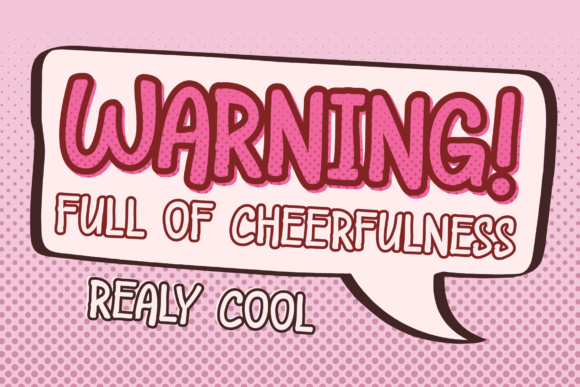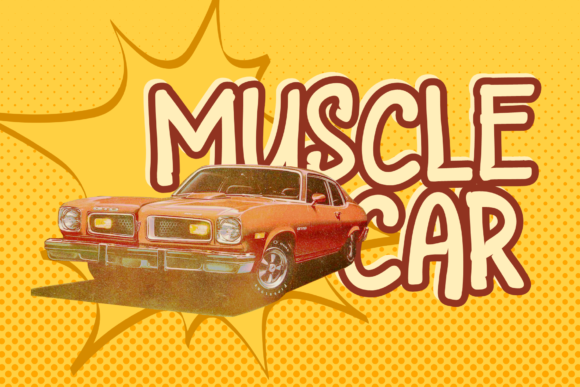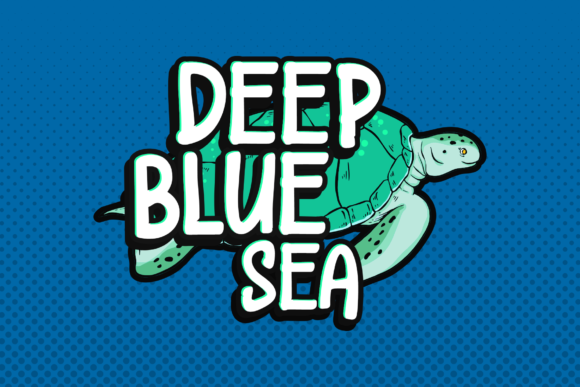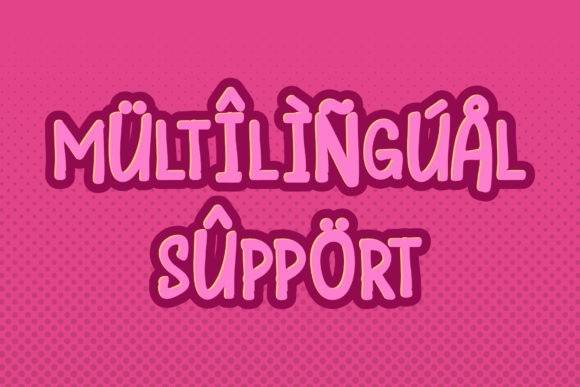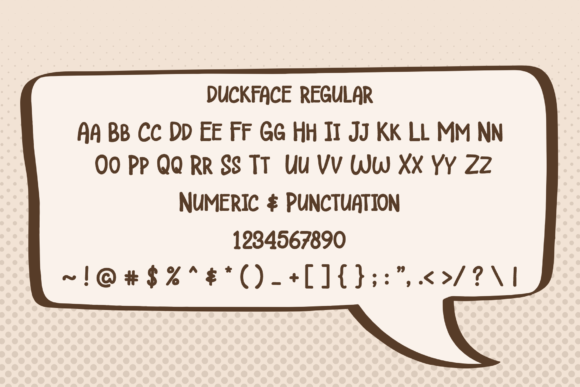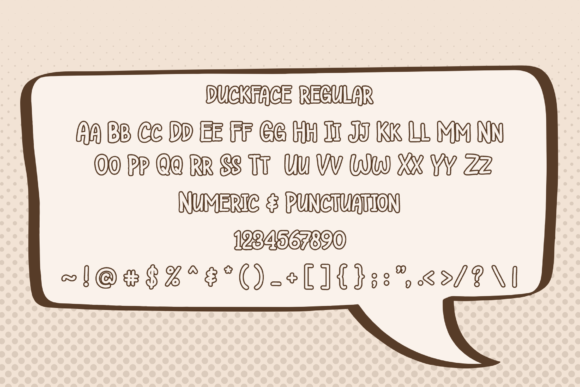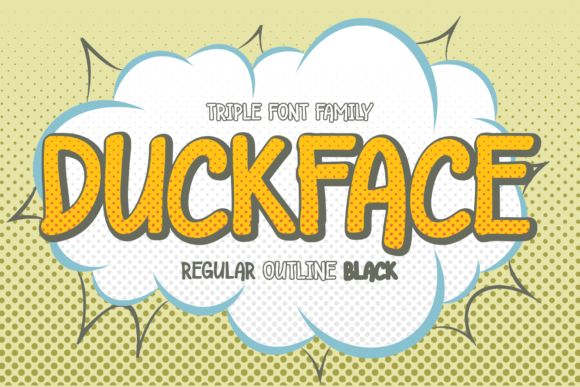
Duckface Font: The Quack-tastic Choice for Playful Designs
Are you looking for a font that embodies playfulness and authenticity? Look no further than the adorable Duckface Font! This cute and playful display font is perfect for any children activity or school project that requires a fun and lively touch. In this article, we’ll dive into the world of Duckface Font and explore its features, uses, and benefits for designers and crafters.
What is Duckface Font?
Duckface Font is a display font designed to capture the essence of playfulness and whimsy. Its unique and quirky design makes it an excellent choice for projects that require a lighthearted and humorous tone. The font’s cute and endearing appearance is sure to delight children and adults alike, making it perfect for a wide range of applications, from children’s books and educational materials to craft projects and DIY activities.
Features of Duckface Font
So, what makes Duckface Font so special? Here are some of its key features:
- Playful design: Duckface Font boasts a unique and playful design that is sure to grab attention.
- Cute and endearing: The font’s adorable appearance makes it perfect for projects that require a touch of whimsy and humor.
- Display font: Duckface Font is designed as a display font, making it perfect for headlines, titles, and other prominent text elements.
- Easy to read: Despite its playful design, Duckface Font is easy to read, making it suitable for both children and adults.
Uses of Duckface Font
Duckface Font is a versatile font that can be used in a wide range of applications, including:
- Children’s books and educational materials: The font’s playful design and cute appearance make it perfect for children’s books, educational materials, and activity sheets.
- Craft projects and DIY activities: Duckface Font is a great choice for craft projects, such as making cards, gift tags, and other DIY activities.
- School projects: The font’s fun and playful design makes it suitable for school projects, such as posters, presentations, and reports.
- Social media graphics: Duckface Font can also be used to create fun and engaging social media graphics, such as memes, quotes, and inspirational messages.
Benefits of Using Duckface Font
So, why should you choose Duckface Font for your next project? Here are some benefits of using this adorable font:
- Adds a touch of whimsy: Duckface Font adds a touch of whimsy and playfulness to any project, making it perfect for children’s activities and school projects.
- Easy to read: The font’s clear and easy-to-read design ensures that your message is conveyed effectively.
- Versatile: Duckface Font can be used in a wide range of applications, from digital projects to print materials.
- Fun and engaging: The font’s playful design is sure to delight children and adults alike, making it perfect for projects that require a fun and engaging tone.
Tips for Using Duckface Font
Here are some tips for using Duckface Font effectively:
- Use it sparingly: Duckface Font is a display font, so use it sparingly to add emphasis to headlines, titles, and other prominent text elements.
- Pair it with other fonts: Combine Duckface Font with other fonts to create a visually appealing design.
- Experiment with colors: The font’s playful design lends itself well to bright and bold colors, so don’t be afraid to experiment with different color schemes.
In conclusion, Duckface Font is a cute and playful display font that embodies playfulness and authenticity. Its unique design makes it perfect for children’s activities, school projects, and craft projects that require a fun and lively touch. With its ease of use, versatility, and fun design, Duckface Font is sure to become a favorite among designers and crafters.